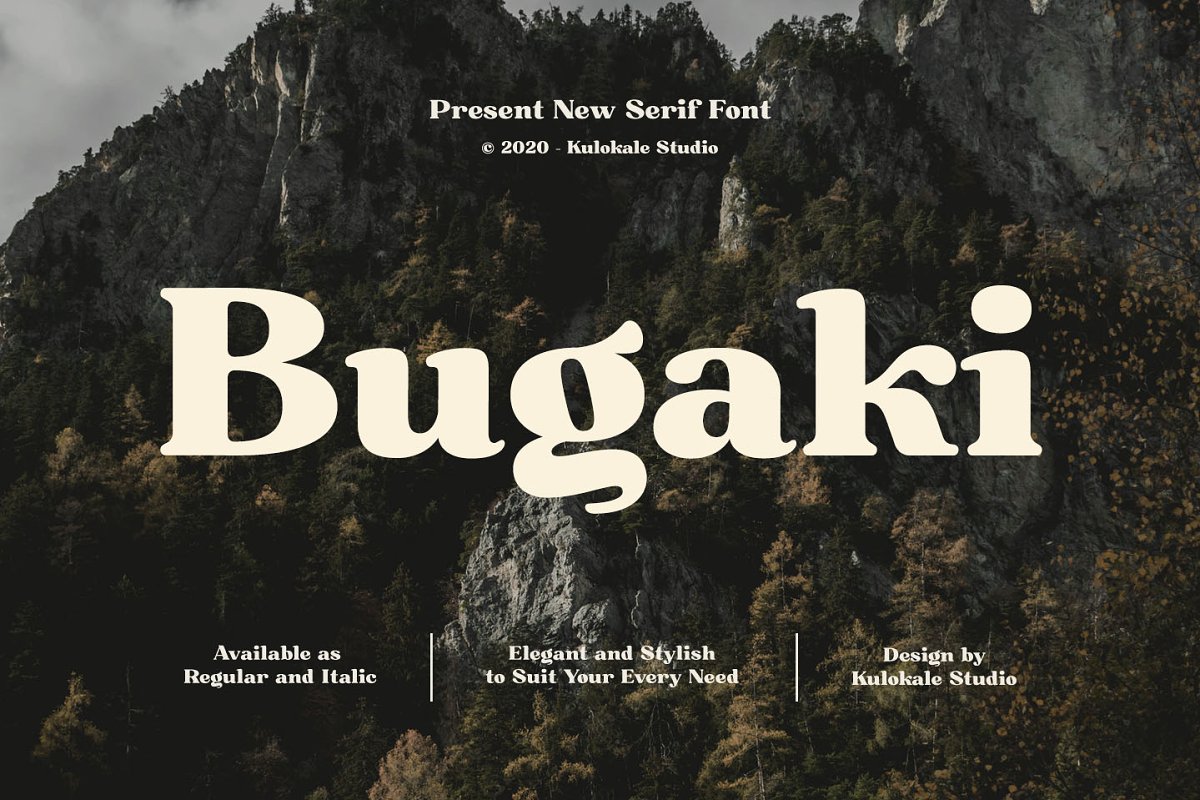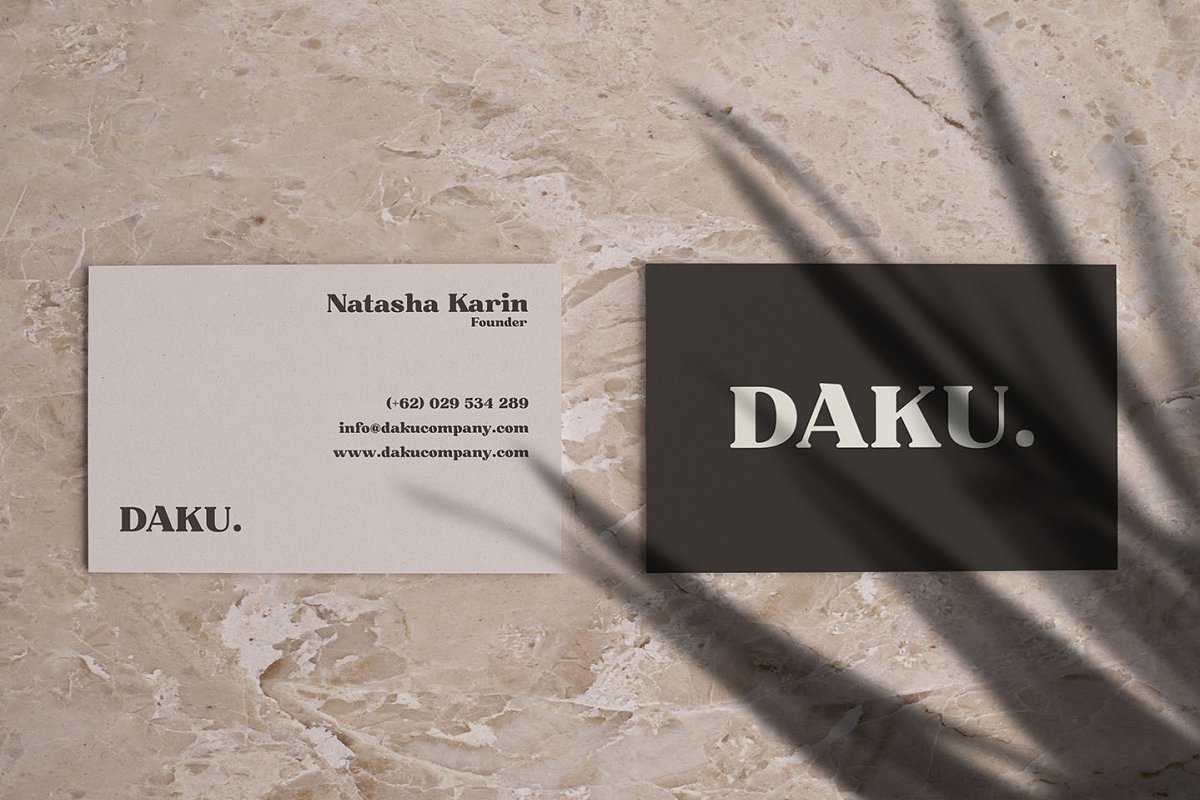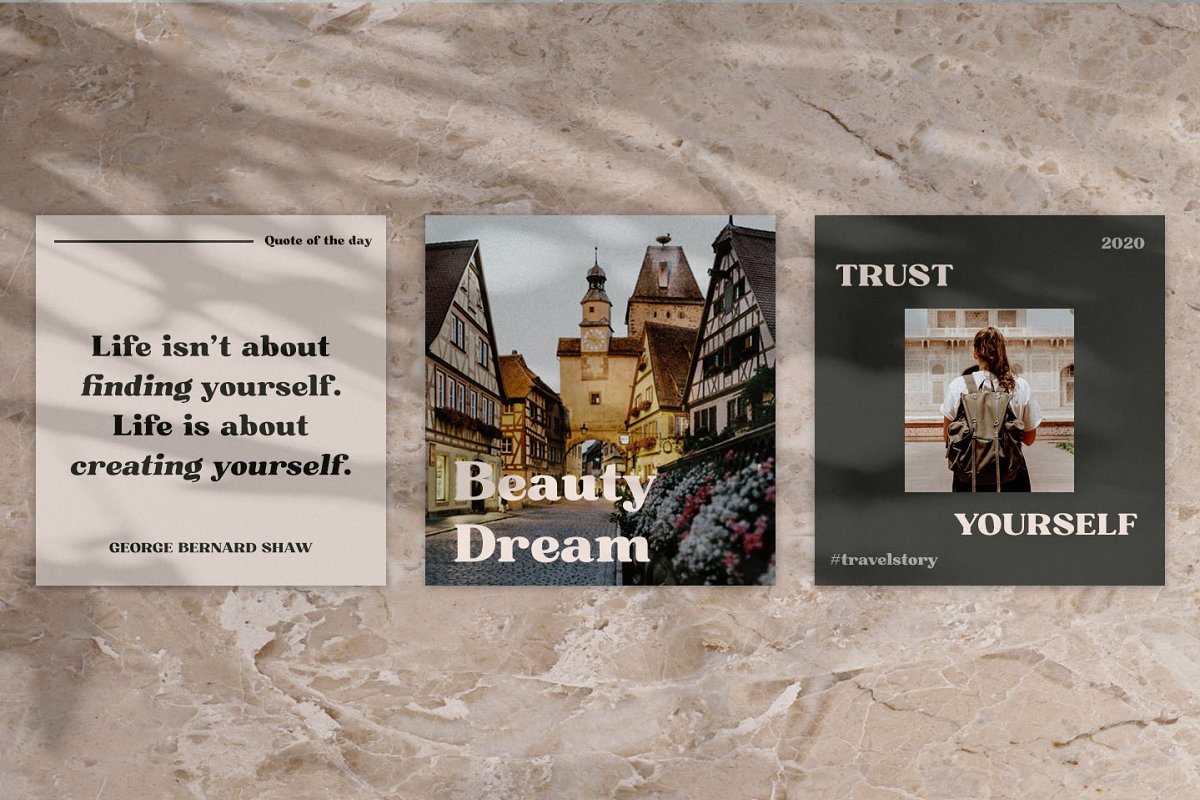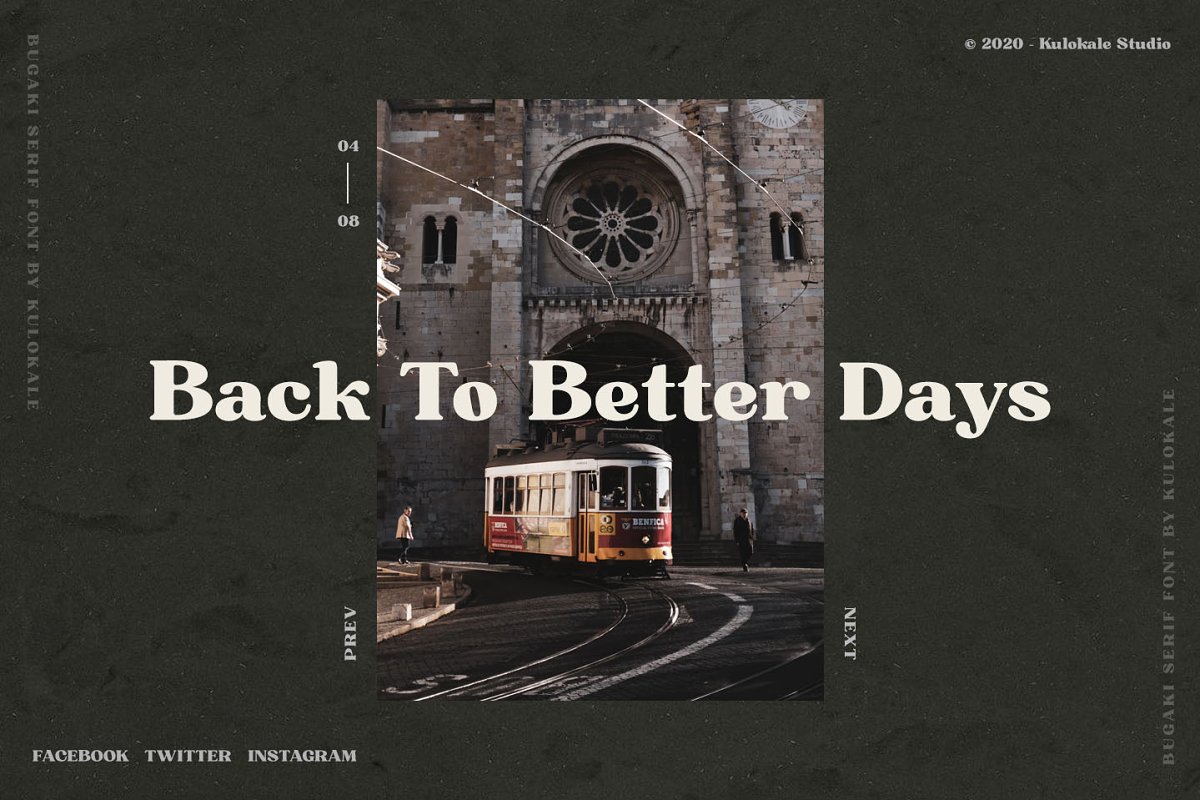
About the Bugaki Elegant Serif Font
Bugaki is a modern and elegant serif font, Bugaki is well-suited for advertising, branding, logotypes, packaging, titles, headlines and editorial design, Here’s what you get:Bugaki, ttf, Bugaki, otf, and Bugaki, woffBugaki-Italic, ttf, Bugaki-Italic, otf, and Bugaki-Italic, woffBugaki includes Capital and Lowercase letters, Alternates, and LigaturesNumbers + punctuationForeign language supportThis font is encoded with Unicode PUA, which allows full access to all additional characters without having special design software